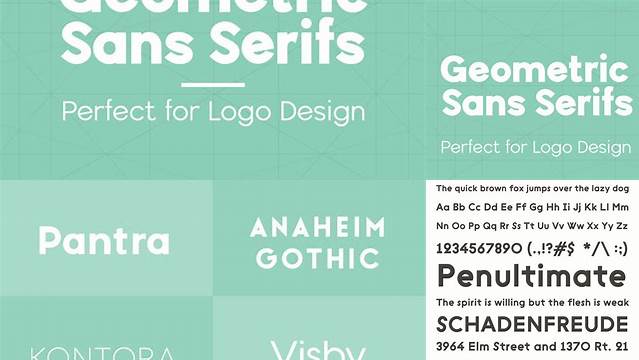
Geometric Sans Serif Fonts: Find The Perfect Dafont Choice
Hey guys! Are you on the hunt for the perfect geometric sans serif font? Look no further! This article is your ultimate guide to finding stunning geometric sans serif fonts, especially those hidden gems on Dafont. We'll dive deep into what makes these fonts so special, how to use them effectively, and of course, where to find the best ones. Let's get started!
What are Geometric Sans Serif Fonts?
So, what exactly are geometric sans serif fonts? Well, they're a type of typeface that's built on, you guessed it, geometric shapes! Think perfect circles, clean triangles, and straight lines. This gives them a modern, clean, and often minimalist look. They're super versatile and can be used in a ton of different design projects, from logos and branding to websites and print materials. The beauty of these fonts lies in their simplicity and readability. They convey a sense of clarity and precision, which makes them ideal for conveying a professional or technical feel. The even strokes and consistent letterforms contribute to a harmonious visual experience, making them easy on the eyes and highly legible even at smaller sizes. This makes them a great choice for body text as well as headlines. Designers often use geometric sans serif fonts to create a sense of order and structure in their layouts. They pair well with other font styles, such as serif or script fonts, to create a visually appealing contrast. By combining the clean lines of a geometric sans serif with the more ornate details of another font, you can create a design that is both modern and sophisticated. In addition to their aesthetic qualities, geometric sans serif fonts are also highly functional. Their clear and legible letterforms make them easy to read in a variety of contexts, from printed materials to digital displays. This makes them a popular choice for user interfaces and other applications where readability is paramount. Whether you're designing a logo, a website, or a brochure, a geometric sans serif font can help you create a polished and professional look. Their versatility and timeless appeal make them a valuable asset to any designer's toolkit.
Why Choose Geometric Sans Serif Fonts?
Okay, so why should you even bother with geometric sans serif fonts? Simple: they're incredibly versatile and stylish! They have a timeless quality that works well across different design trends. Whether you're going for a modern, minimalist look or something more corporate and professional, a geometric sans serif can fit the bill. Their clean lines make them easy to read, which is super important for things like websites and branding. Plus, they pair well with other font styles, giving you tons of creative freedom. Think of them as the Swiss Army knife of the font world! They're also great for conveying a sense of trustworthiness and reliability. This makes them a popular choice for companies in industries like finance, technology, and healthcare. The geometric shapes evoke a sense of precision and accuracy, which can help to build confidence in your brand. In addition to their visual appeal and functional benefits, geometric sans serif fonts can also help to create a consistent brand identity. By using the same font across all of your marketing materials, you can create a cohesive look that reinforces your brand message. This can help to increase brand recognition and build customer loyalty. When choosing a geometric sans serif font, it's important to consider the overall tone and style of your brand. Some fonts are more playful and casual, while others are more formal and sophisticated. Choose a font that accurately reflects your brand personality and target audience. You should also think about how the font will look in different sizes and weights. Some fonts may look great in headlines but become difficult to read in body text. Be sure to test the font in a variety of contexts to ensure that it is legible and visually appealing.
Dafont: Your Treasure Trove for Fonts
Dafont is a goldmine, guys! Seriously, if you haven't explored Dafont, you're missing out. It's a website packed with thousands of fonts, many of which are free for personal use. It's a great place to discover unique and interesting typefaces that you might not find anywhere else. While not everything on Dafont is top-tier quality, there are definitely some hidden gems. Plus, it's super easy to navigate. You can search by category, style, or even just browse through the latest additions. It's a fantastic resource for designers of all levels. Just remember to double-check the licensing before using a font in a commercial project. Many fonts on Dafont are free for personal use only, but some require a commercial license. It's always better to be safe than sorry! One of the best things about Dafont is the sheer variety of fonts available. Whether you're looking for a classic serif, a quirky script, or a bold display font, you're sure to find something that suits your needs. The website is constantly updated with new fonts, so there's always something fresh to discover. In addition to fonts, Dafont also offers a range of other design resources, such as icons, vectors, and templates. This makes it a one-stop shop for all your design needs. The website also has a forum where you can ask questions and get feedback from other designers. This is a great way to learn new techniques and improve your skills. Overall, Dafont is an invaluable resource for anyone who works with fonts. Whether you're a professional designer or just starting out, you're sure to find something that inspires you.
Finding Geometric Sans Serif Fonts on Dafont
Okay, so how do you actually find geometric sans serif fonts on Dafont? The search function is your best friend. Try searching for terms like "geometric", "sans serif", "modern", or even specific styles like "futuristic" or "minimalist". You can also use the category filters to narrow down your search. Don't be afraid to experiment with different keywords! Sometimes the best fonts are the ones you stumble upon accidentally. When you find a font you like, be sure to check out the designer's other fonts. They might have similar styles that you'll also love. Also, pay attention to the font's license. Make sure it's suitable for your intended use. And lastly, don't forget to bookmark your favorite fonts so you can easily find them later. One trick is to use the "preview" feature to see how the font looks with your own text. This can help you determine whether the font is a good fit for your project. You can also download a sample of the font to try it out in your design software. This will give you a better sense of how the font looks and feels. Another useful feature on Dafont is the ability to sort fonts by popularity, date added, or rating. This can help you find the best and newest fonts on the website. You can also filter fonts by language to find fonts that support your specific language needs. Overall, Dafont is a great resource for finding geometric sans serif fonts. With a little bit of searching and experimentation, you're sure to find the perfect font for your project.
Top Geometric Sans Serif Font Choices on Dafont
Let's get to the good stuff! Here are some top picks for geometric sans serif fonts you can find on Dafont:
- Bebas Neue: A classic, tall and narrow font that's great for headlines.
- Raleway: A more elegant and versatile option, perfect for both headlines and body text.
- Montserrat: A popular choice with a clean and modern feel.
- Lato: A friendly and readable font that works well in a variety of contexts.
- Oswald: Another tall and narrow font that's great for creating a strong visual impact.
These are just a few examples, of course! There are tons of other great geometric sans serif fonts to discover on Dafont. So go ahead and start exploring! Remember to consider the specific needs of your project when choosing a font. Think about the overall tone and style you're trying to achieve. Also, pay attention to the font's readability and legibility. A font that looks great but is difficult to read won't be very effective. It's also a good idea to experiment with different font pairings. Try combining a geometric sans serif with a serif or script font to create a unique and visually appealing design. Don't be afraid to break the rules and try something new! The most important thing is to choose a font that you love and that accurately reflects your brand or message. With a little bit of experimentation and creativity, you can create a design that is both beautiful and effective. So go ahead and start exploring the world of geometric sans serif fonts! You're sure to find something that inspires you.
Using Geometric Sans Serif Fonts Effectively
Using geometric sans serif fonts effectively is all about balance and context. Here's a few quick tips:
- Pairing is Key: Don't be afraid to mix and match with other font styles. A serif font can add contrast and visual interest.
- Consider Hierarchy: Use different weights and sizes to create a clear visual hierarchy.
- Legibility Matters: Make sure your font is easy to read, especially in smaller sizes.
- Think About Your Brand: Choose a font that aligns with your brand's personality and values.
By following these tips, you can create designs that are both visually appealing and effective. Remember that the goal is to communicate your message clearly and effectively. A well-chosen font can help you to do just that. So take your time, experiment with different options, and find the font that best suits your needs. And don't be afraid to ask for feedback from others. Sometimes a fresh perspective can help you to see things in a new light. With a little bit of effort and attention to detail, you can create designs that are both beautiful and functional.
Geometric Fonts for Logos
Geometric sans serif fonts are amazing for logo design! Their clean, modern look can give your brand a sense of professionalism and trustworthiness. Think about brands like Adidas or Spotify – their logos use geometric fonts to convey a sense of simplicity and innovation. When choosing a geometric font for your logo, consider the overall personality of your brand. Do you want to project a sense of sophistication or playfulness? Choose a font that aligns with your brand values and target audience. Also, make sure the font is legible at different sizes. Your logo should look good on a business card as well as on a billboard. Another important factor to consider is the color of your logo. Geometric fonts often look best in bold colors or with a simple black and white palette. Experiment with different color combinations to find the one that best represents your brand. And don't be afraid to get creative with the font itself. You can customize the letters to create a unique and memorable logo. Just make sure that the changes are subtle and don't detract from the overall legibility of the font. Ultimately, the goal is to create a logo that is both visually appealing and easy to recognize. A well-chosen geometric font can help you to achieve that goal.
Best Geometric Fonts for Websites
For websites, readability is everything. You want a geometric sans serif font that's easy on the eyes, even on smaller screens. Fonts like Lato, Open Sans, and Montserrat are excellent choices. They're clean, clear, and designed for optimal readability. Also, consider the overall design of your website. Choose a font that complements your color scheme and layout. You want a font that enhances the user experience, not distracts from it. Another important factor to consider is the loading time of your website. Some fonts can slow down your website's performance, which can negatively impact your search engine rankings. Choose a font that is optimized for web use to ensure that your website loads quickly and efficiently. And don't forget to test your font on different browsers and devices to make sure it looks good on all platforms. Ultimately, the goal is to create a website that is both visually appealing and easy to use. A well-chosen geometric font can help you to achieve that goal. So take your time, experiment with different options, and find the font that best suits your needs. And don't be afraid to ask for feedback from others. Sometimes a fresh perspective can help you to see things in a new light.
Geometric Fonts for Print Materials
When it comes to print materials like brochures, posters, and business cards, geometric sans serif fonts can create a professional and modern look. Fonts like Futura, Avenir, and Gotham are popular choices for print design. They're clean, legible, and work well in both headlines and body text. Consider the overall design of your print materials. Choose a font that complements your color scheme and layout. You want a font that enhances the visual appeal of your print materials, not distracts from it. Also, make sure the font is legible at different sizes. Your font should look good on a small business card as well as on a large poster. Another important factor to consider is the paper stock you're using. Some fonts may look better on certain types of paper than others. Experiment with different paper stocks to find the one that best showcases your font. And don't forget to proofread your print materials carefully to ensure that there are no typos or errors. Ultimately, the goal is to create print materials that are both visually appealing and easy to read. A well-chosen geometric font can help you to achieve that goal. So take your time, experiment with different options, and find the font that best suits your needs. And don't be afraid to ask for feedback from others. Sometimes a fresh perspective can help you to see things in a new light.
Geometric Fonts for Mobile Apps
In the world of mobile apps, user interface (UI) and user experience (UX) are paramount. Geometric sans serif fonts shine in this arena due to their legibility and clean aesthetics. Fonts like Roboto, San Francisco (the default iOS font), and Nunito are frequently used in mobile app design. When selecting a geometric font for your mobile app, prioritize clarity and readability, even on smaller screens. Ensure the font scales well and maintains its legibility across various devices and resolutions. Accessibility is another crucial consideration. Choose a font that is easy to read for users with visual impairments. Provide options for users to adjust font size and contrast to accommodate their individual needs. Consistency is key in mobile app design. Use the same geometric font throughout your app to create a cohesive and professional look. This will help users navigate your app more easily and understand your brand message. Performance is also a factor to consider. Choose a font that is optimized for mobile devices to ensure that your app loads quickly and efficiently. Avoid using too many different fonts, as this can slow down your app's performance and create a cluttered look. Ultimately, the goal is to create a mobile app that is both visually appealing and easy to use. A well-chosen geometric font can help you to achieve that goal. So take your time, experiment with different options, and find the font that best suits your needs. And don't be afraid to ask for feedback from others. Sometimes a fresh perspective can help you to see things in a new light.
Combining Geometric Fonts with Other Styles
One of the coolest things about geometric sans serif fonts is how well they play with others! Pairing them with different font styles can create some really interesting and dynamic designs. For example, try pairing a geometric font with a classic serif font like Times New Roman or Garamond. This creates a nice contrast between the clean lines of the geometric font and the more traditional feel of the serif font. This can be a great way to add a touch of sophistication to your designs. Another option is to pair a geometric font with a script font. This can create a more playful and whimsical look. Just be careful not to overdo it – you want to make sure that the script font is still legible and doesn't clash with the geometric font. You can also experiment with different weights and styles of geometric fonts. For example, try pairing a bold geometric font with a light geometric font. This can create a nice visual hierarchy and add depth to your designs. Ultimately, the key is to experiment and see what works best for your project. Don't be afraid to break the rules and try something new! The most important thing is to choose fonts that complement each other and create a cohesive and visually appealing design. So go ahead and start experimenting with different font pairings! You're sure to find something that inspires you.
The Psychology of Geometric Fonts
Fonts aren't just about aesthetics; they also carry psychological weight. Geometric sans serif fonts often evoke feelings of modernity, efficiency, and clarity. They're associated with technology, innovation, and trustworthiness. This is why you often see them used in branding for tech companies, financial institutions, and other businesses that want to project a sense of reliability. The clean lines and precise shapes of geometric fonts convey a sense of order and structure. This can be especially appealing in situations where you want to create a sense of calm and stability. For example, a geometric font might be a good choice for a website for a mental health clinic or a financial planning firm. However, it's important to be aware that geometric fonts can also come across as cold or impersonal if they're not used carefully. To avoid this, try pairing them with warmer colors or more organic shapes. You can also use them in combination with other font styles to create a more balanced and inviting look. Ultimately, the key is to understand the psychological associations of different fonts and choose the ones that best reflect your brand's personality and values. So take some time to research the psychology of fonts and experiment with different combinations to see what works best for you. And don't be afraid to ask for feedback from others. Sometimes a fresh perspective can help you to see things in a new light.
Geometric Fonts in Branding
As we touched on, geometric sans serif fonts are powerhouses in branding. They can help create a strong, recognizable identity for your business. Think about brands like Google, IKEA, and Calvin Klein – all use geometric fonts to convey a sense of simplicity, modernity, and global appeal. When choosing a geometric font for your brand, consider your target audience and the message you want to convey. A more rounded, friendly geometric font might be a good choice for a brand that wants to appeal to a younger audience, while a more angular, sophisticated geometric font might be better suited for a luxury brand. It's also important to consider how the geometric font will look in different contexts. Will it be used primarily online or in print? Will it be used on small screens or large billboards? Make sure the font is legible and visually appealing in all of these different situations. And don't forget to consider the color palette of your brand. Geometric fonts often look best in bold, contrasting colors. But be careful not to overdo it – you want to make sure that the colors are still harmonious and don't clash with the font. Ultimately, the goal is to create a brand identity that is both visually appealing and memorable. A well-chosen geometric font can help you to achieve that goal. So take your time, experiment with different options, and find the font that best represents your brand's personality and values. And don't be afraid to ask for feedback from others. Sometimes a fresh perspective can help you to see things in a new light.
Trends in Geometric Sans Serif Fonts
The world of typography is constantly evolving, and geometric sans serif fonts are no exception. Some current trends include:
- Variable Fonts: These fonts allow for greater flexibility and customization.
- Rounded Geometric Fonts: These fonts offer a softer, more approachable feel.
- Bold and Condensed Geometric Fonts: These fonts are great for making a statement.
Staying up-to-date with the latest trends can help you create designs that are both modern and relevant. But it's also important to remember that some trends are fleeting, while others have more staying power. So don't just jump on the bandwagon without considering whether a particular trend is right for your project. It's always a good idea to think about the long-term implications of your design choices. Will your font still look good in five years? Or will it look dated and out of touch? Ultimately, the best approach is to strike a balance between staying current and staying true to your own personal style. Choose fonts that you love and that you think will stand the test of time. And don't be afraid to experiment with different combinations to see what works best for you. After all, the most important thing is to create designs that you're proud of.
The Future of Geometric Fonts
What does the future hold for geometric sans serif fonts? Well, given their versatility and timeless appeal, it's safe to say they're not going anywhere anytime soon! We can expect to see even more variations and innovations in this font style as technology continues to evolve. Think about things like virtual reality and augmented reality. These emerging technologies will create new opportunities for designers to use geometric fonts in innovative and exciting ways. We might also see more integration of geometric fonts with artificial intelligence. For example, AI could be used to automatically generate geometric fonts that are tailored to specific design needs. Or AI could be used to analyze the effectiveness of different geometric fonts in different contexts. The possibilities are endless! But one thing is certain: geometric fonts will continue to play an important role in the world of design for many years to come. So if you're a designer, it's definitely worth your time to learn more about these fonts and how to use them effectively. You never know when you might need to use a geometric font in your next project. And with the right knowledge and skills, you can create designs that are both visually stunning and highly effective.
Geometric Fonts vs. Other Sans Serif Fonts
Okay, so what's the difference between geometric sans serif fonts and other types of sans serif fonts? Well, geometric fonts are characterized by their precise, geometric shapes. They tend to have a more modern and minimalist look than other sans serif fonts. Other sans serif fonts, such as humanist sans serif fonts and grotesque sans serif fonts, have more organic and less uniform shapes. Humanist sans serif fonts, for example, are inspired by traditional handwriting and have a more warm and friendly feel. Grotesque sans serif fonts, on the other hand, have a more industrial and utilitarian look. They're often used in signage and other applications where legibility is paramount. Ultimately, the best type of sans serif font to use depends on the specific needs of your project. If you're looking for a font that is clean, modern, and versatile, then a geometric sans serif font is a great choice. But if you're looking for a font that is more warm and friendly, or more industrial and utilitarian, then you might want to consider other types of sans serif fonts. So take some time to research the different types of sans serif fonts and experiment with different combinations to see what works best for you. And don't be afraid to ask for feedback from others. Sometimes a fresh perspective can help you to see things in a new light.
How to Identify a Geometric Font
Identifying a geometric font is easier than you might think! Look for those perfect circles, straight lines, and overall symmetry. The letters will have a very uniform and structured appearance. Compare it to a more organic sans-serif, and you'll see the difference immediately. Another key characteristic of geometric fonts is their consistent stroke weight. The strokes in a geometric font tend to be the same thickness throughout the letterform. This creates a sense of balance and harmony. You can also look at the shapes of the letters. In a geometric font, the letters will often be based on simple geometric shapes, such as circles, squares, and triangles. For example, the letter "O" might be a perfect circle, and the letter "A" might be a triangle with a crossbar. By paying attention to these details, you can easily identify a geometric font. And once you know what to look for, you'll start to see geometric fonts everywhere! They're used in logos, websites, and print materials all over the world. So keep your eyes peeled and see how many geometric fonts you can spot!
Popular Geometric Font Families
Beyond individual fonts, there are entire geometric font families that offer incredible versatility. These families include multiple weights, styles, and variations, giving you a wide range of options for your design projects. Some popular geometric font families include:
- Futura: A classic geometric font family that is known for its clean lines and modern feel.
- Avenir: A more humanist geometric font family that is known for its warmth and readability.
- Gotham: A geometric font family that is known for its bold and impactful presence.
By using a geometric font family, you can create a consistent and cohesive look throughout your designs. This is especially important for branding projects, where consistency is key. So if you're looking for a geometric font that offers a lot of flexibility and versatility, then a geometric font family is a great choice. And with so many different geometric font families to choose from, you're sure to find one that is perfect for your project.
Geometric Fonts and Accessibility
Accessibility is crucial in design, and geometric sans serif fonts can play a significant role. Choose fonts with clear letterforms and sufficient spacing to ensure readability for users with visual impairments. Also, provide options for users to adjust font size and contrast. By following these guidelines, you can create designs that are accessible to everyone. Remember that accessibility is not just about complying with regulations; it's about creating a more inclusive and equitable world. So make accessibility a priority in all of your design projects. And don't be afraid to ask for feedback from users with disabilities. They can provide valuable insights that can help you to improve the accessibility of your designs. Ultimately, the goal is to create designs that are not only visually appealing but also usable and accessible to everyone. And by paying attention to accessibility, you can make a positive impact on the lives of others.
Geometric Fonts in UI/UX Design
In UI/UX design, geometric sans serif fonts offer a clean and modern aesthetic that can enhance the user experience. They're easy to read on screens of all sizes, and their simple shapes make them ideal for icons and other UI elements. When choosing a geometric font for your UI/UX design, consider the overall tone and style of your app or website. Do you want to create a sense of sophistication or playfulness? Choose a font that aligns with your brand values and target audience. Also, make sure the font is legible at different sizes and on different devices. Your font should look good on a small smartphone screen as well as on a large desktop monitor. And don't forget to test your font with users to get their feedback. They can provide valuable insights that can help you to improve the usability of your designs. Ultimately, the goal is to create a user interface that is both visually appealing and easy to use. A well-chosen geometric font can help you to achieve that goal. So take your time, experiment with different options, and find the font that best suits your needs. And don't be afraid to ask for feedback from others. Sometimes a fresh perspective can help you to see things in a new light.
Licensing Considerations for Dafont Fonts
When using fonts from Dafont, always double-check the licensing! Many fonts are free for personal use but require a commercial license for business purposes. Ignoring this can lead to legal trouble, so always read the fine print. The license information is usually found on the font's download page. It will tell you whether the font is free for personal use, commercial use, or both. If the font is only free for personal use, you will need to purchase a commercial license in order to use it in your business projects. The cost of a commercial license can vary depending on the font and the designer. But it's always better to pay for a license than to risk getting sued for copyright infringement. So before you use a font from Dafont in your business projects, make sure you understand the licensing terms and conditions. And if you're not sure, it's always best to err on the side of caution and purchase a commercial license.
Common Mistakes When Using Geometric Fonts
Even with their versatility, there are some common pitfalls to avoid when using geometric sans serif fonts. Overusing them can make your design feel sterile or monotonous. Also, be careful when pairing them with other fonts. Some font combinations can clash and create a jarring visual effect. Another common mistake is using geometric fonts in situations where they're not appropriate. For example, a geometric font might not be the best choice for a project that requires a more warm and inviting feel. Ultimately, the key is to use geometric fonts thoughtfully and strategically. Consider the overall tone and style of your project and choose a font that aligns with your goals. And don't be afraid to experiment with different font combinations to see what works best. With a little bit of care and attention, you can avoid these common mistakes and create designs that are both visually appealing and effective.
Where to Learn More About Geometric Fonts
Want to become a geometric font expert? There are tons of resources available online! Check out typography blogs, online courses, and design communities. Experiment with different fonts and practice using them in your own projects. The more you learn, the better you'll become at choosing and using geometric fonts effectively. Some popular typography blogs include I Love Typography, Typographica, and Fonts in Use. These blogs offer articles, reviews, and interviews about all things typography. Online courses are a great way to learn the fundamentals of typography and design. Some popular online course platforms include Skillshare, Udemy, and Coursera. Design communities are a great way to connect with other designers and get feedback on your work. Some popular design communities include Dribbble, Behance, and Awwwards. By taking advantage of these resources, you can expand your knowledge of geometric fonts and become a more skilled and confident designer.
Examples of Brands Using Geometric Fonts Successfully
Need some inspiration? Here are a few examples of brands that use geometric sans serif fonts to great effect:
- Adidas: Their logo uses a bold geometric font to convey a sense of athleticism and energy.
- Spotify: Their brand identity relies on a clean geometric font to communicate simplicity and innovation.
- IKEA: Their logo features a friendly geometric font that reflects their approachable and affordable brand.
By studying these examples, you can gain a better understanding of how to use geometric fonts effectively in your own branding projects. Pay attention to the font choices, the color palettes, and the overall design aesthetic. What makes these brands so successful? What can you learn from their approach? By analyzing these examples, you can develop your own unique style and create designs that are both visually appealing and strategically sound. So go ahead and start exploring the world of branding and typography. You're sure to find something that inspires you.
Advanced Techniques with Geometric Fonts
Ready to take your geometric font skills to the next level? Try experimenting with advanced techniques like kerning, leading, and tracking. These techniques can help you fine-tune the appearance of your fonts and create a more polished and professional look. Kerning refers to the spacing between individual letters. Adjusting the kerning can improve the readability of your fonts and create a more harmonious visual effect. Leading refers to the spacing between lines of text. Adjusting the leading can improve the readability of your text and create a more balanced layout. Tracking refers to the overall spacing between all of the letters in a word or phrase. Adjusting the tracking can create a more open and airy look, or a more dense and compact look. By mastering these advanced techniques, you can elevate your designs to a whole new level. So take some time to experiment with kerning, leading, and tracking. You'll be amazed at the difference it can make.
Geometric Fonts for Different Design Styles
Geometric sans serif fonts are so versatile that they can be used in a wide variety of design styles. Whether you're working on a minimalist design, a modern design, or a retro design, there's a geometric font that can fit the bill. For minimalist designs, choose a clean and simple geometric font with a neutral color palette. This will help to create a sense of calm and serenity. For modern designs, choose a bold and impactful geometric font with a vibrant color palette. This will help to create a sense of energy and excitement. For retro designs, choose a geometric font with a vintage feel. This will help to create a sense of nostalgia and authenticity. No matter what design style you're working on, a geometric font can help you to achieve your goals. So don't be afraid to experiment with different geometric fonts and see what works best for you. With a little bit of creativity and imagination, you can create designs that are both visually appealing and strategically sound.
Alright, guys, that's a wrap on our deep dive into geometric sans serif fonts on Dafont! Hopefully, you've got a better understanding of what these fonts are, why they're so awesome, and how to find and use them effectively. Now go out there and create some amazing designs!